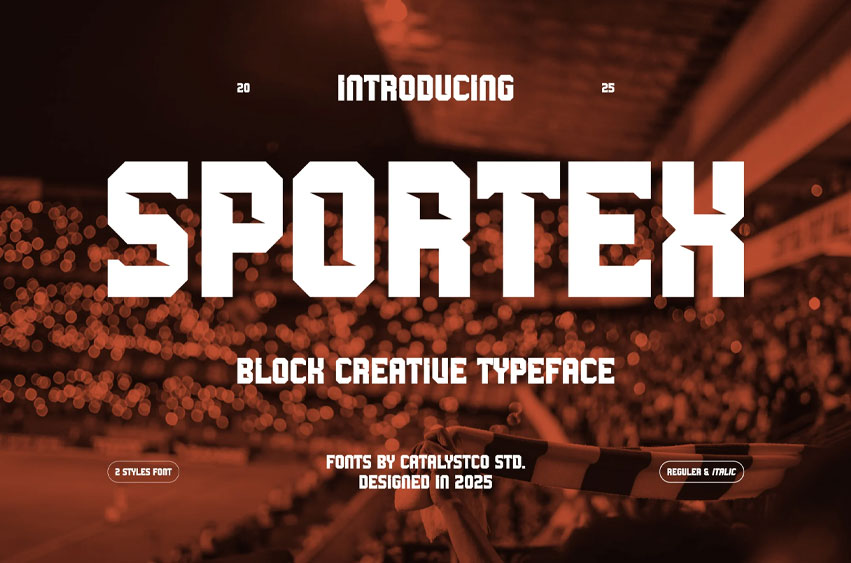
Sportex Block Font
Sportex Block Font is a bold and energetic block display font designed for powerful and eye-catching visuals. It features strong, geometric letterforms with sharp angles, making it ideal for sports branding, event posters, athletic merchandise, and dynamic advertising.
With two styles available—Regular and Italic—Sportex offers great flexibility to create striking and competitive designs. Its impactful and rugged appearance captures the spirit of victory and strength, perfect for energizing any project!